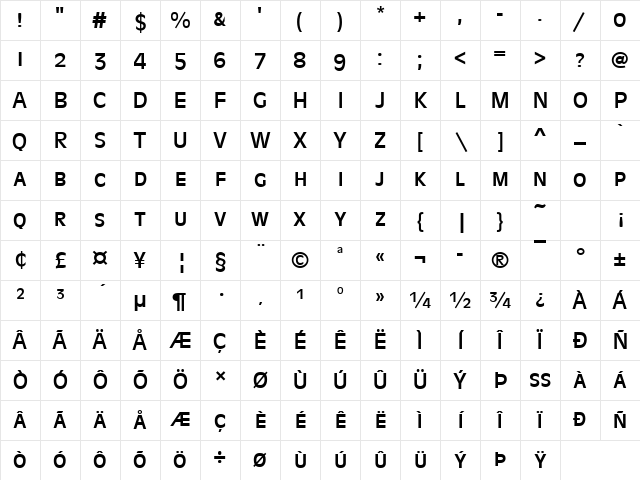
Complete AntiqueOliSCTReg Regular glyph index. Displaying only characters natively supported by AntiqueOliSCTReg Regular font.
AntiqueOliSCTReg wears its vintage influences proudly, with letterforms that recall mid-century signage, classic packaging, and nostalgia-driven design.
Ideal for diner signage, record shop branding, 70s/80s-themed projects, and heritage product labels.
Font Pairing: Combine AntiqueOliSCTReg with a simple slab or neutral sans - period-accurate companions reinforce the vintage feel without competing for attention.
Pro Tip: Lean into AntiqueOliSCTReg's period character by pairing it with aged paper textures, muted colour palettes, and vintage illustration styles.